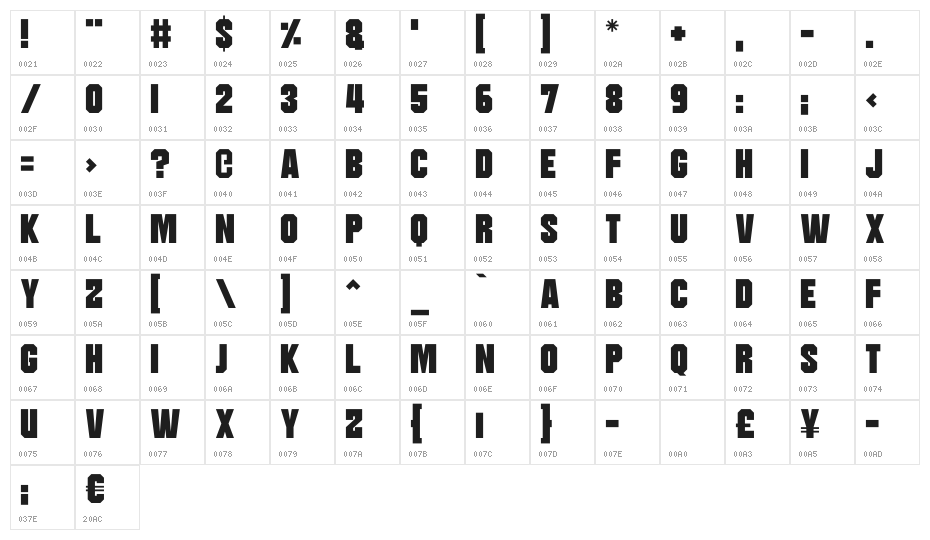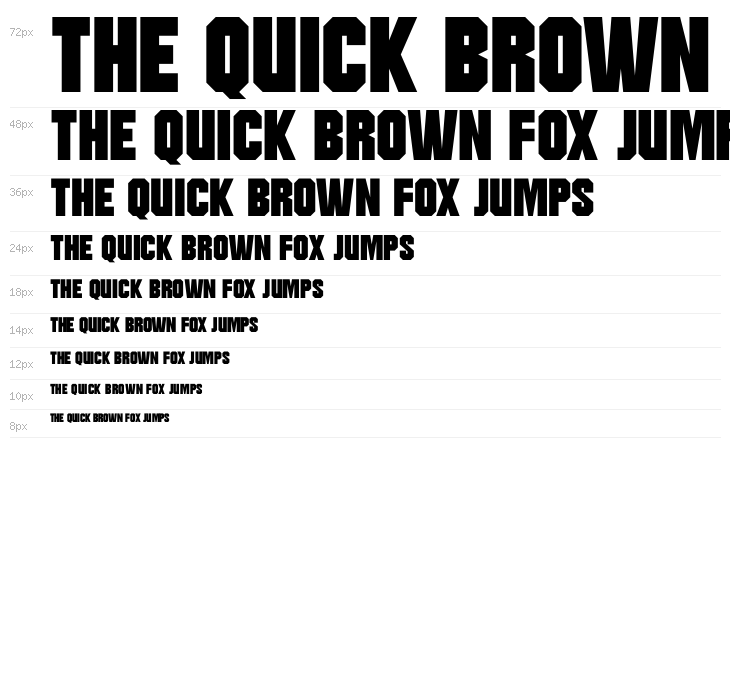
Moonbase Delta Font
Moonbase Delta Description
This font features a bold, geometric design with a strong presence. The characters are constructed with thick, uniform strokes, giving them a robust and impactful appearance. The angular shapes and sharp edges contribute to a modern and futuristic aesthetic. The uppercase and lowercase letters maintain a consistent style, with the numbers and special characters seamlessly integrated into the overall design. This font's heavy weight and solid structure make it ideal for attention-grabbing headlines and titles.
| Proposed Projects | Ideal for use in sci-fi themed projects, posters, branding, and any design requiring a strong, impactful typeface. |